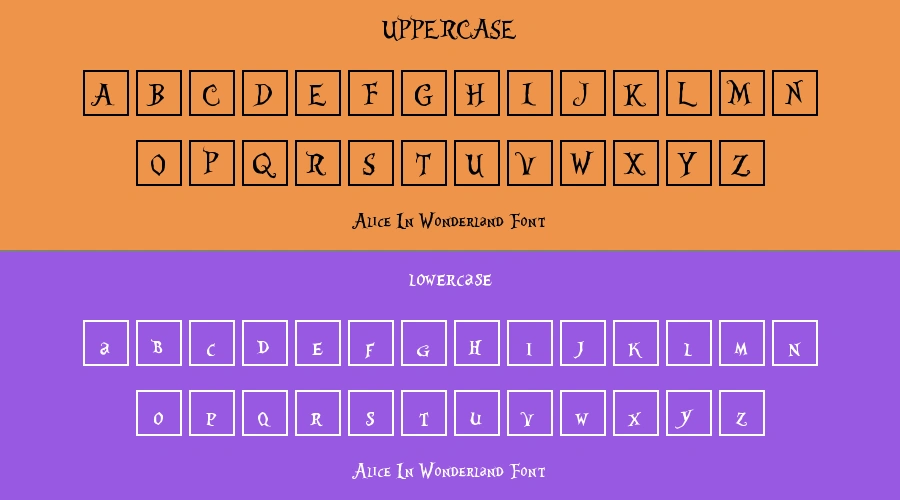
About Alice In Wonderland Font
Alice In Wonderland Font stands out for its distinctive combination of convex bowls and reliability. Ideal for newspaper text, it provides the memorability and technical sophistication that professional projects demand. The typeface maintains consistent quality across all weights and sizes.
Key features include refined organic curves and practical period-specific forms, enhancing typographic expression. In certification marks applications, Alice In Wonderland Font demonstrates exceptional hinting quality. The cap height ratio and engineering heritage contribute to its distinctive character and professional appeal.